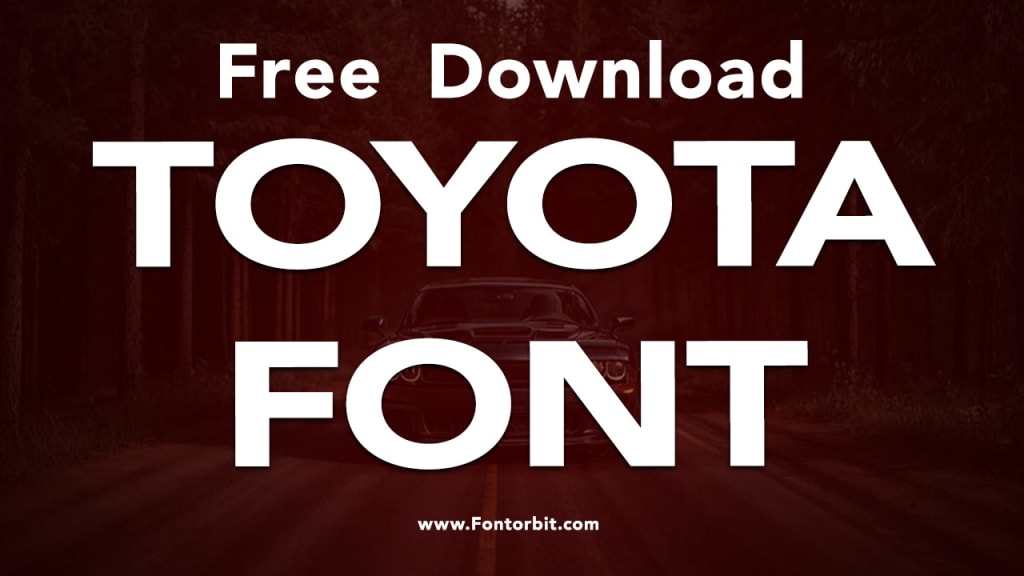
The Toyota Font: A Deep Dive into the Iconic Typeface
Toyota Font
The Toyota brand is one of the most recognizable names in the automotive industry, known for its innovation, reliability, and global appeal. One key element that has contributed to Toyota’s visual identity is its distinct font.
While fonts may seem like small details in branding, they can play a crucial role in how a company is perceived. The Toyota font is no exception. This article explores the history, design, and impact of the Toyota font, shedding light on how it has shaped the company’s image and brand recognition.
The History of the Toyota Font
The Toyota font, primarily seen in the company’s logo and various marketing materials, is designed to reflect the brand’s modern, forward-thinking approach. Toyota’s use of typography dates back to the company's origins in Japan. Over the years, the company has refined its logo and associated fonts to better represent its values and the ever-evolving global automotive market.
Initially, Toyota's typeface was more traditional, reflective of the company’s early years in the mid-20th century. However, as the company expanded its international presence, the design of its logo and font underwent multiple changes. These modifications were aimed at making the brand feel more universal, while still preserving the essence of Japanese culture and innovation.
The Design of the Toyota Font
The Toyota font is a custom-designed typeface, developed specifically to align with the company’s branding. It is a sleek, modern sans-serif font that embodies simplicity, precision, and functionality. These characteristics mirror Toyota’s reputation for producing high-quality, reliable vehicles. The font is typically used in Toyota’s logo, advertisements, and other promotional materials, reinforcing a consistent and recognizable brand identity.
Unlike some other automotive brands that use heavily stylized or complex fonts, Toyota opts for a clean, legible design. This design choice speaks to the company’s emphasis on clarity, practicality, and user-friendliness. The Toyota font exudes a sense of sophistication without being overly flashy, which aligns with the company’s focus on producing cars that are both practical and innovative.
Toyota Font in Marketing
In marketing, the Toyota font plays a critical role in conveying the company’s message and values. The font’s simplicity and clean lines make it easy to read, even from a distance, ensuring that Toyota’s advertisements capture attention quickly. Whether it’s a print ad in a magazine or a digital ad online, the Toyota font is instantly recognizable, helping to create a sense of familiarity with consumers.
The font is also employed in Toyota’s slogans and taglines, such as “Moving Forward” and “Let’s Go Places.” In these cases, the typeface is used to emphasize the brand’s commitment to progress and innovation. The clean, straightforward design of the font complements the forward-thinking nature of Toyota’s products, making it a powerful tool in communicating the company’s message to a global audience.
Impact of the Toyota Font on Branding
The Toyota font plays a crucial role in the brand's overall identity. Consistent use of this distinctive typeface across all of Toyota’s visual materials helps create a cohesive and unified brand image. The font has become synonymous with Toyota’s commitment to quality, innovation, and global reach.
Furthermore, the font’s minimalistic yet modern design has contributed to the perception of Toyota as a brand that values both tradition and progress. This balance has allowed Toyota to remain relevant in a competitive market and maintain a loyal customer base across generations.
Conclusion
The Toyota font is more than just a typeface – it is a symbol of the brand’s identity and values. From its history to its design, the Toyota font has played a vital role in creating a memorable and recognizable brand.
Its simplicity, clarity, and modernity align perfectly with Toyota’s image as an innovative leader in the automotive industry. As Toyota continues to evolve, the font will undoubtedly remain an essential part of the brand’s visual identity, reinforcing the company’s global presence and commitment to quality.
Frequently Asked Questions (FAQs)
1. Why does Toyota use a custom font?
Toyota uses a custom font to create a unique and consistent brand identity that reflects its values, such as quality, reliability, and innovation.
2. Is the Toyota font available for public use?
No, the Toyota font is a proprietary typeface designed specifically for the brand and is not available for public use.
3. How does the Toyota font contribute to the brand’s image?
The Toyota font contributes to the brand’s image by conveying simplicity, modernity, and reliability, which align with the company's values and product offerings.
4. What type of font is the Toyota font?
5. Has the Toyota font changed over time?
Yes, the Toyota font has undergone several updates throughout the company’s history to align with its evolving brand identity and international presence.